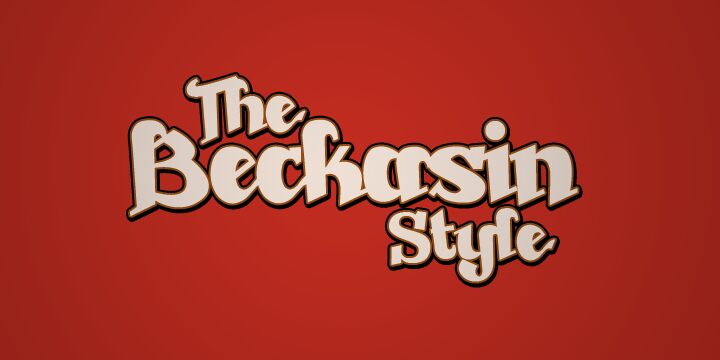
Beckasin by Måns Grebäck is a free experimental display font with wildly distorted letterforms. Tall strokes bend, broad curves swell, and changing widths keep the line unsettled. Its silhouettes feel cut and rearranged rather than conventionally drawn.
Concert posters benefit most from its loud, unruly profile. It also suits album covers, club flyers, and fashion graphics aimed at an offbeat audience. The letters can merge with angular collage and warped photography, turning the wording into part of the image.